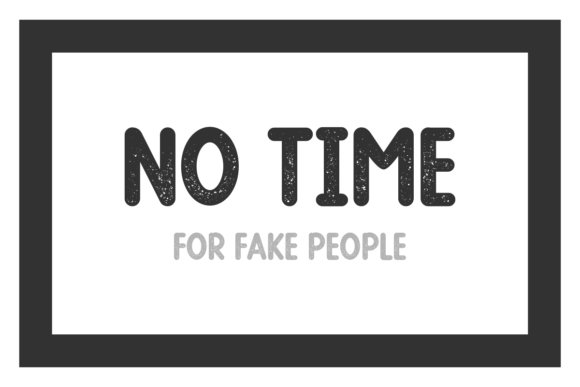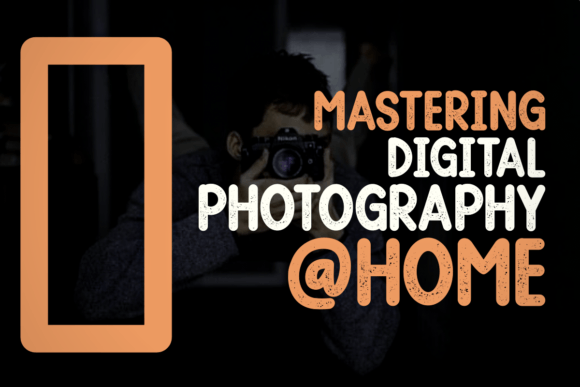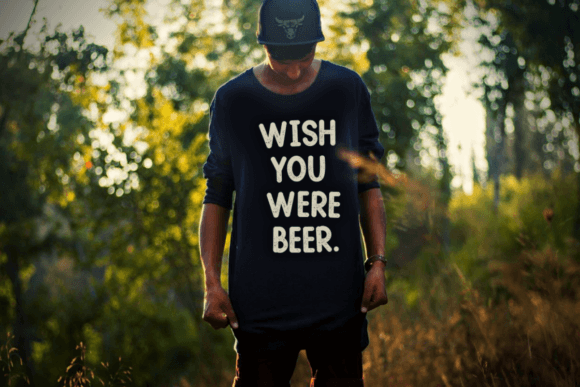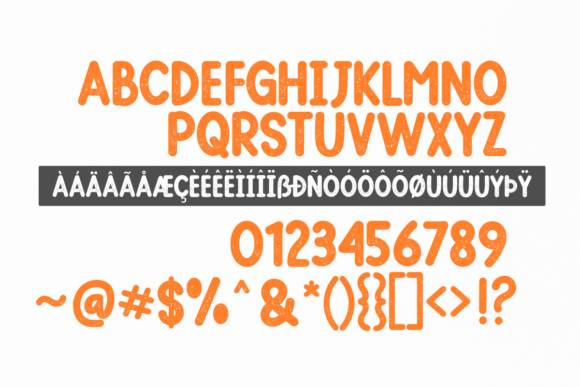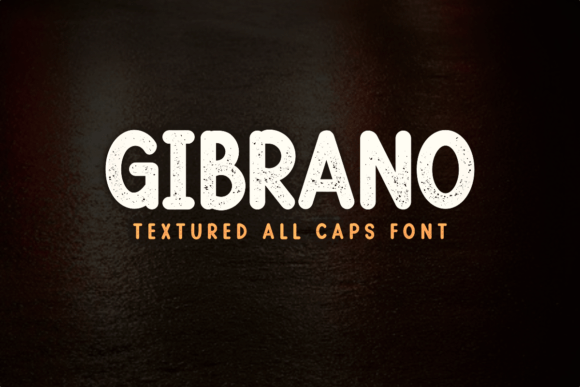
Gibrano Font: The Ultimate Textured Display Font for Bold Designs
Are you tired of using the same old fonts for your designs? Look no further! Gibrano Font is here to take your creative projects to the next level. This textured all-caps display font is bold, expressive, and perfect for making a statement. In this article, we’ll dive into the features and benefits of Gibrano Font, and explore how you can use it to elevate your designs.
What is Gibrano Font?
Gibrano Font is a unique and eye-catching font that is designed to add a touch of personality to your designs. It’s a textured all-caps display font, which means it’s perfect for headlines, titles, and other prominent text elements. The font features thick, solid lines that give it a bold and expressive look, making it easy to read and attention-grabbing.
Key Features of Gibrano Font
- Textured look: Gibrano Font has a distinctive textured look that gives it a tactile feel. The font’s texture adds depth and visual interest to your designs, making them more engaging and dynamic.
- All-caps display font: Gibrano Font is an all-caps display font, which means it’s perfect for use in headlines, titles, and other prominent text elements. The font’s bold and expressive characteristics make it ideal for grabbing attention and making a statement.
- Bold and expressive: Gibrano Font is designed to be bold and expressive, making it perfect for designs that need to stand out. The font’s thick, solid lines give it a confident and assertive look that’s sure to grab attention.
- Easy to read: Despite its bold and textured look, Gibrano Font is easy to read, even at smaller sizes. This makes it perfect for use in a variety of design applications, from posters and flyers to digital screens and social media.
Benefits of Using Gibrano Font
So why should you use Gibrano Font in your designs? Here are just a few benefits of using this amazing font:
- Adds personality to your designs: Gibrano Font is a unique and eye-catching font that can add a touch of personality to your designs. Its bold and expressive characteristics make it perfect for designs that need to stand out.
- Perfect for creative projects: Gibrano Font is designed for use in creative projects, such as posters, flyers, brochures, and more. It’s also perfect for digital projects, such as social media graphics and website headers.
- Versatile: Gibrano Font is a versatile font that can be used in a variety of design applications. Its bold and expressive characteristics make it perfect for use in headlines, titles, and other prominent text elements.
How to Use Gibrano Font in Your Designs
Using Gibrano Font in your designs is easy! Here are a few tips to get you started:
- Use it as a headline font: Gibrano Font is perfect for use as a headline font. Its bold and expressive characteristics make it ideal for grabbing attention and making a statement.
- Pair it with other fonts: Gibrano Font can be paired with other fonts to create a unique and visually appealing design. Try pairing it with a clean and simple font, such as Arial or Helvetica.
- Experiment with different colors: Gibrano Font looks great in a variety of colors. Experiment with different colors to find the one that works best for your design.
- Use it in digital and print designs: Gibrano Font can be used in both digital and print designs. Its bold and expressive characteristics make it perfect for use in a variety of design applications.
| Author | Deedeetype |
Gibrano Font is a unique and eye-catching font that’s perfect for designers and crafters who want to add a touch of personality to their designs. Its bold and expressive characteristics make it ideal for use in headlines, titles, and other prominent text elements. With its textured look and easy-to-read design, Gibrano Font is perfect for use in a variety of design applications, from posters and flyers to digital screens and social media. So why wait? Download Gibrano Font today and take your designs to the next level!